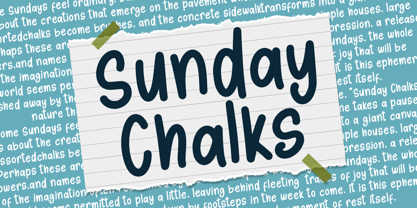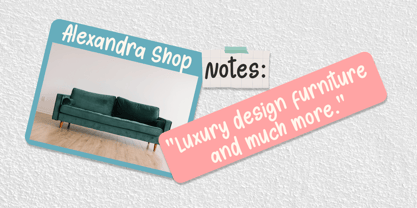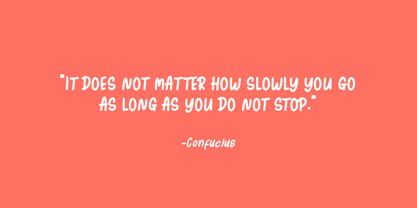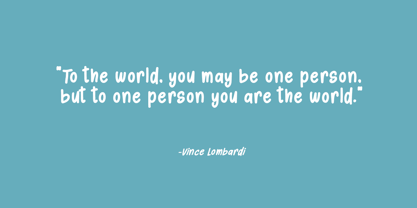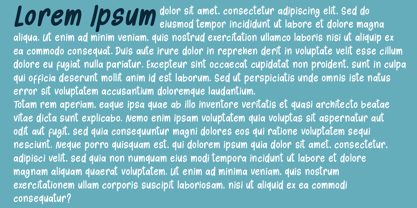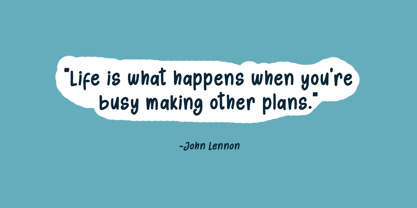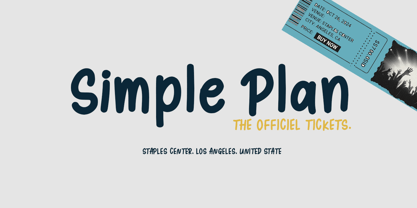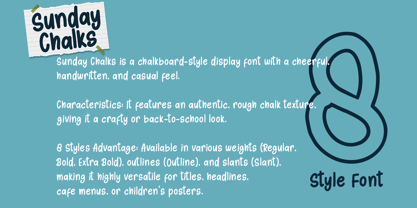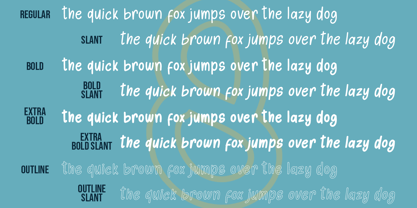
Sunday Chalks Family
by Struggle Studio
The Sunday Chalks Family Font Family was designed by Andri Kurniawan and published by Struggle Studio. Sunday Chalks Family contains 8 styles and family package options. More about this family
Sunday Chalks is a chalkboard-style display font with a cheerful, handwritten, and casual feel. Key Characteristics: Texture: This font features an authentic, rough chalk texture, giving it a crafty or "back-to-school" look. Impression: It conveys a playful and friendly impression, making it suitable for less formal designs. Style Advantage & Variations: The font is highly versatile as it is available in various weights and styles: Weights: Regular Bold Extra Bold Styles: Slant Outline Suggested Usage: Due to its distinctive and cheerful style, the Sunday Chalks font is ideal for use in: Titles Headlines Cafe Menus Children's Posters Motivational quotes and personal messages (as seen in the sample images)
Designers: Andri Kurniawan
Foundry: Struggle Studio